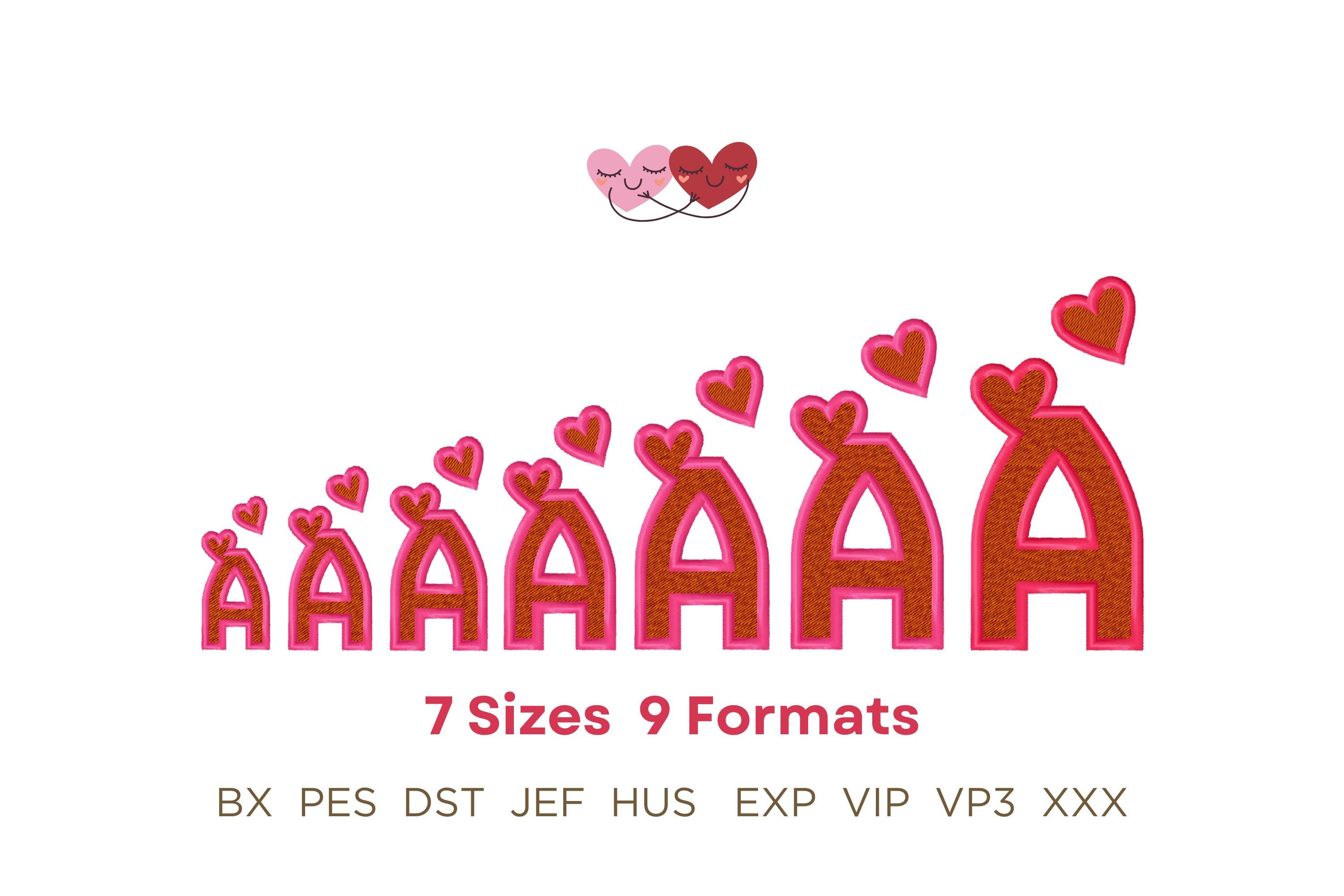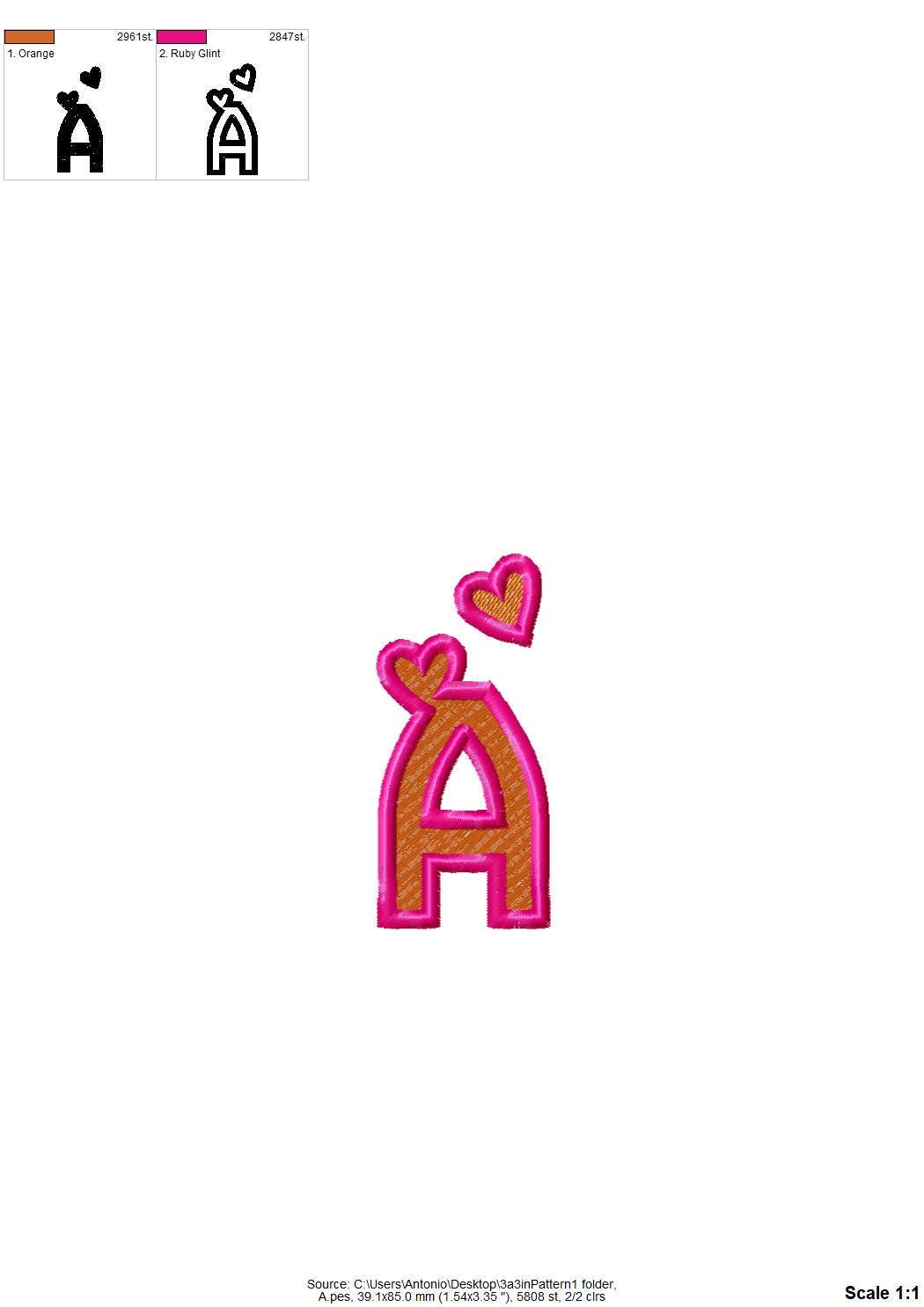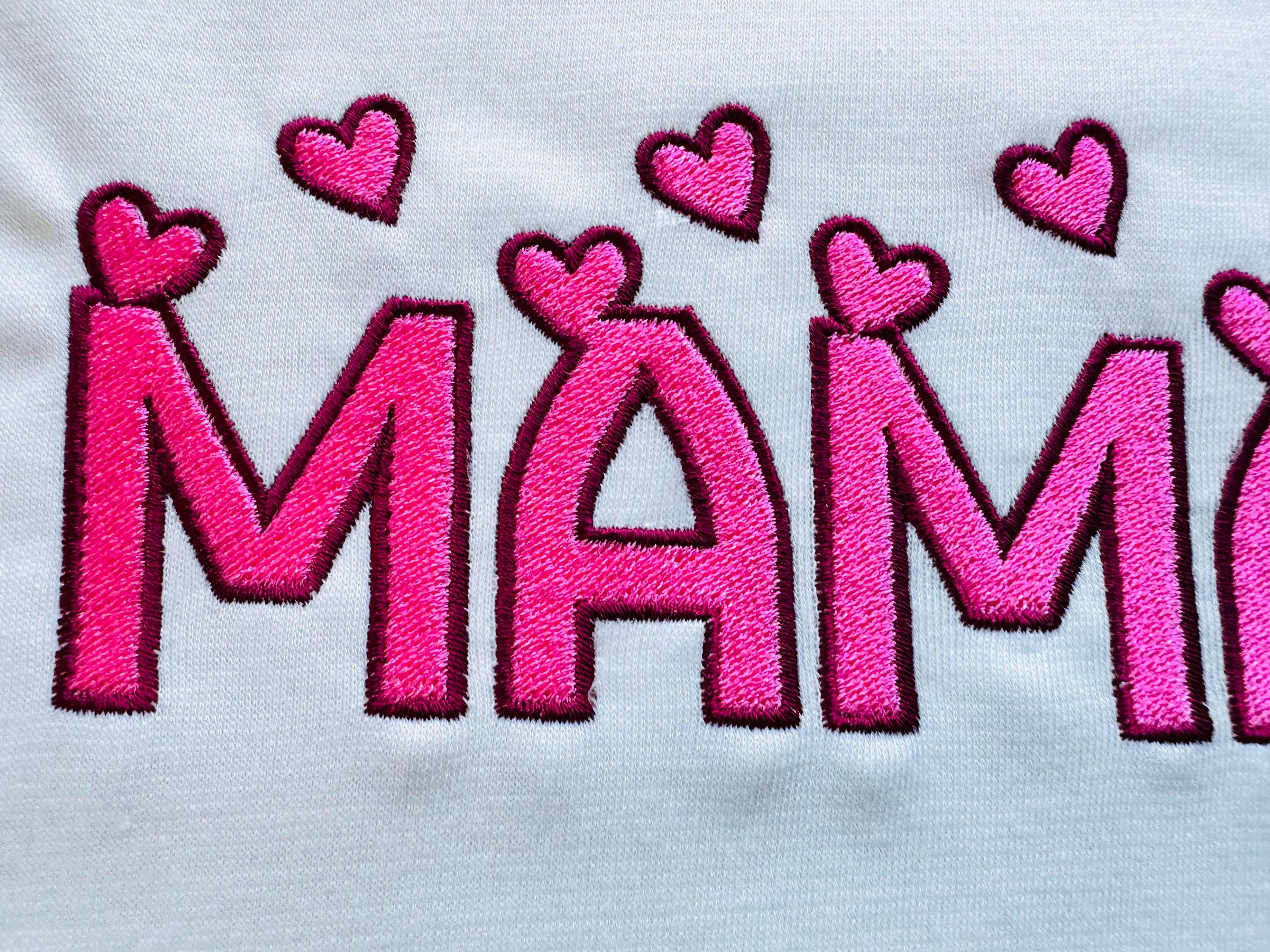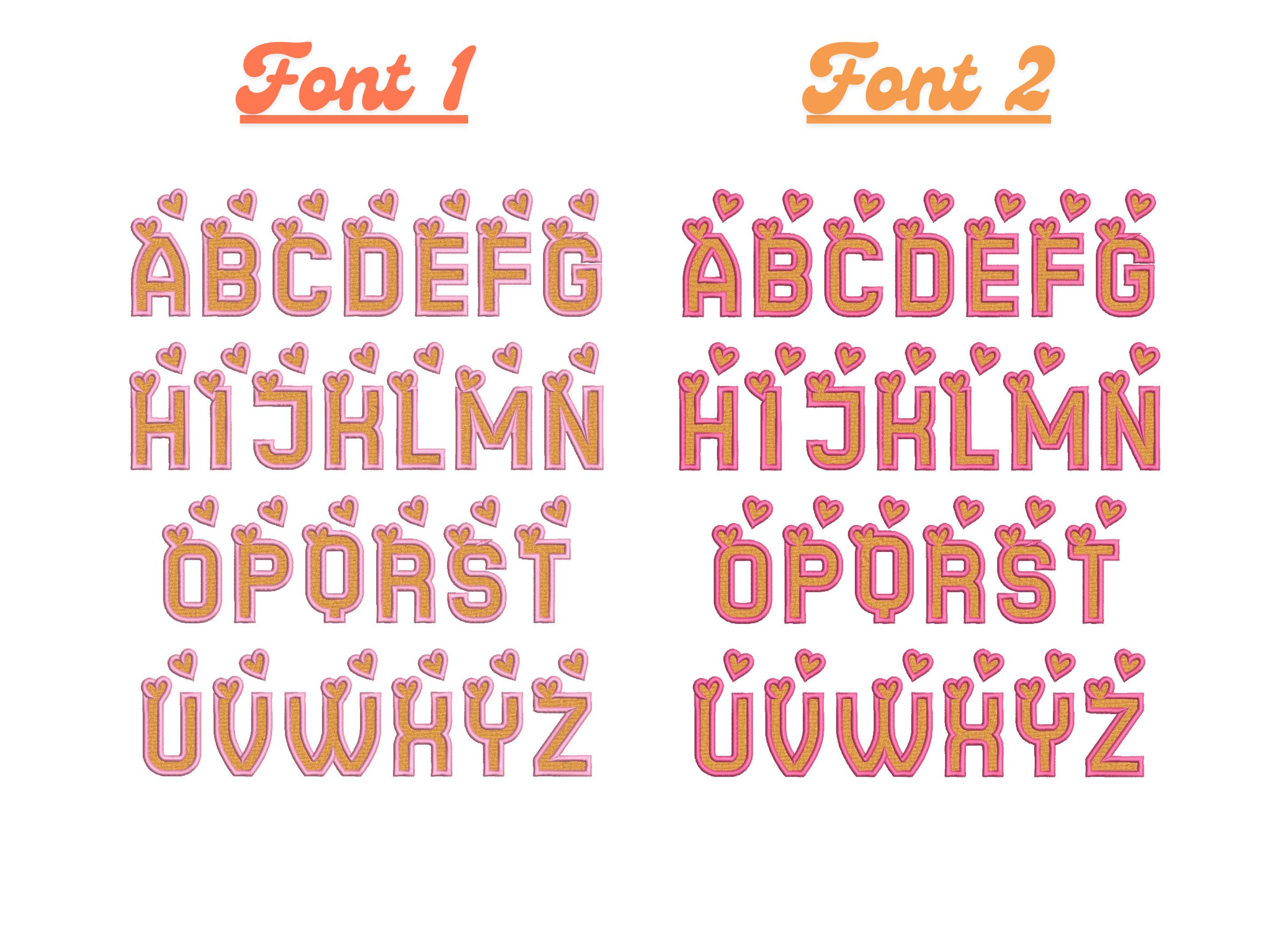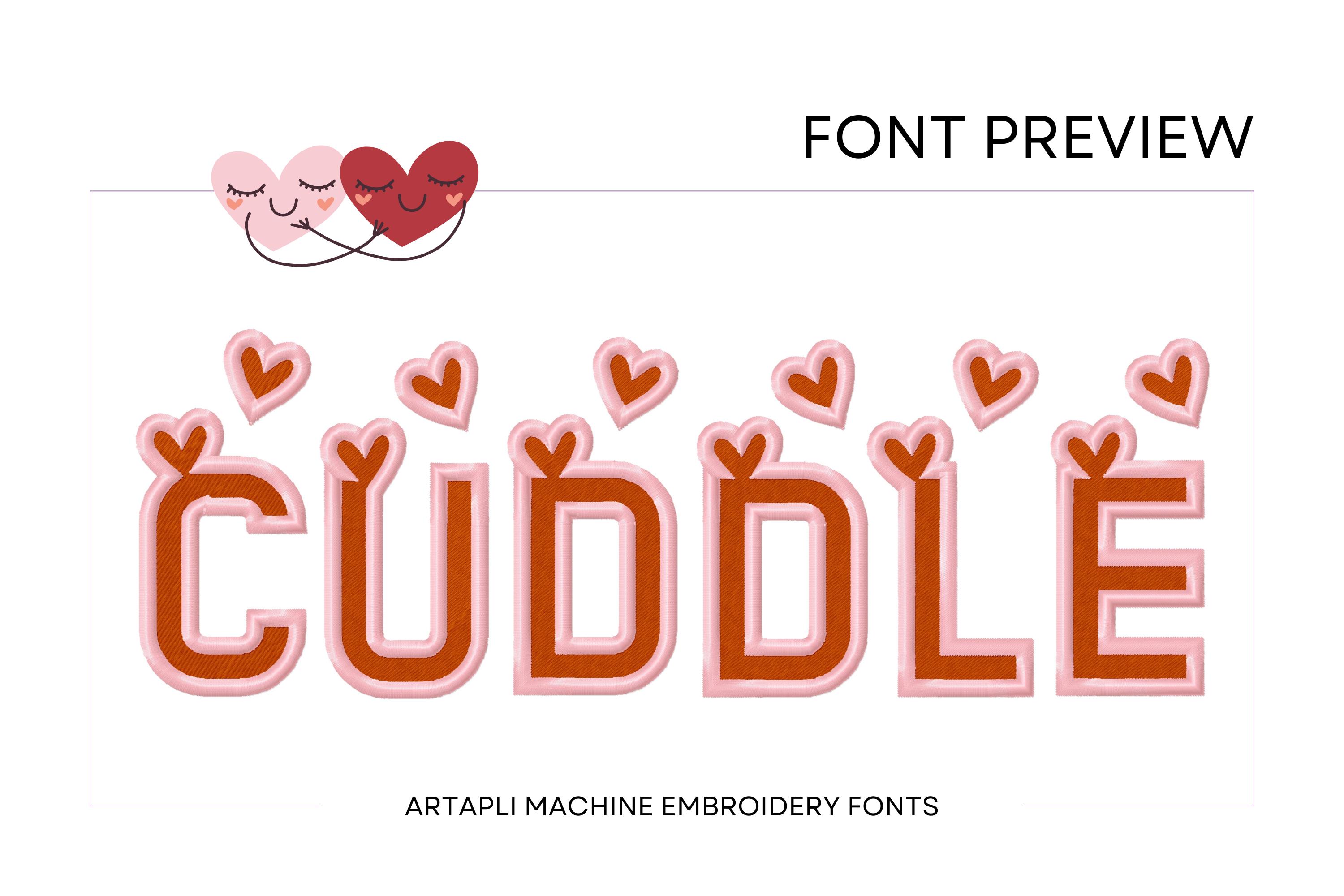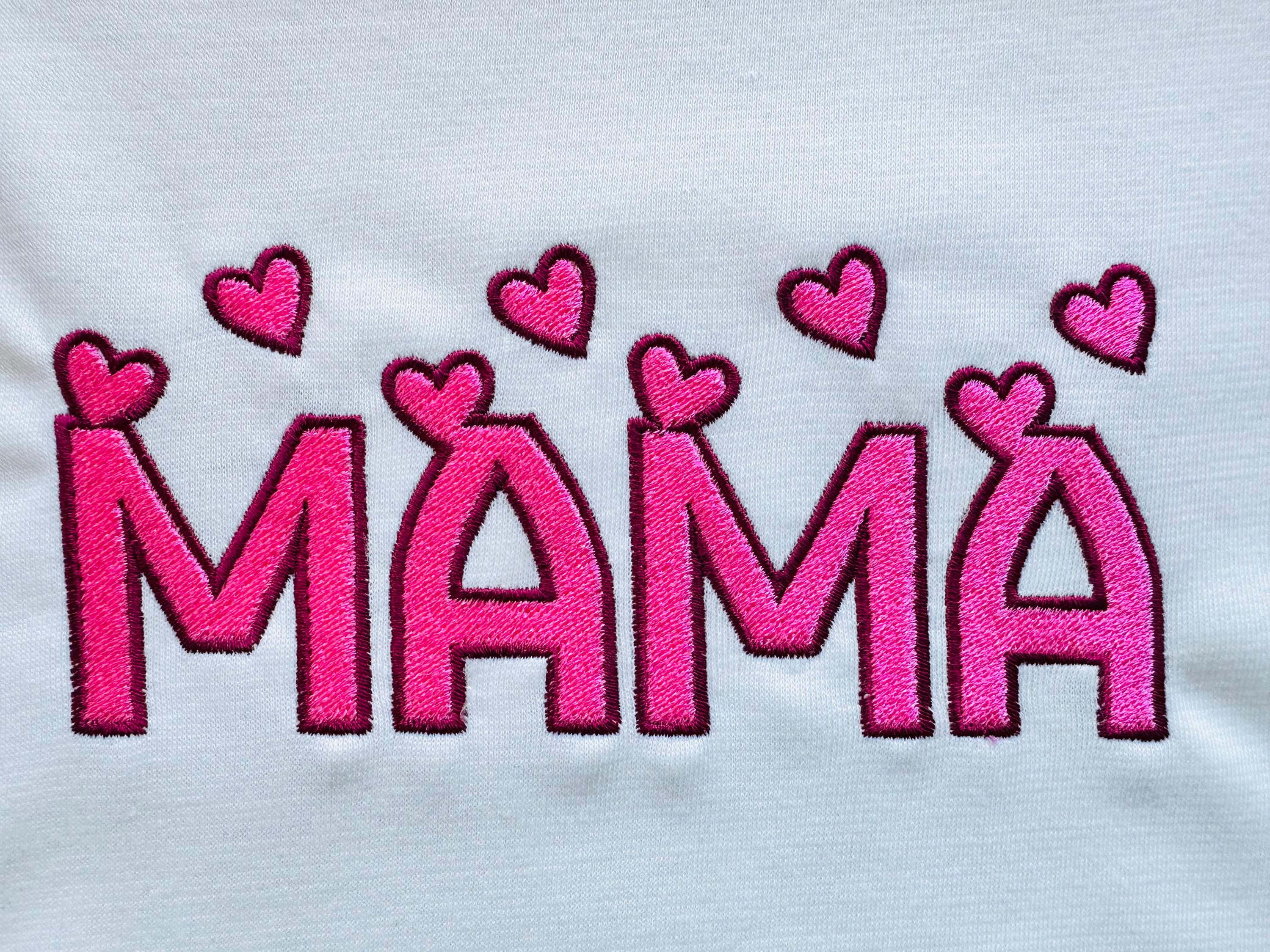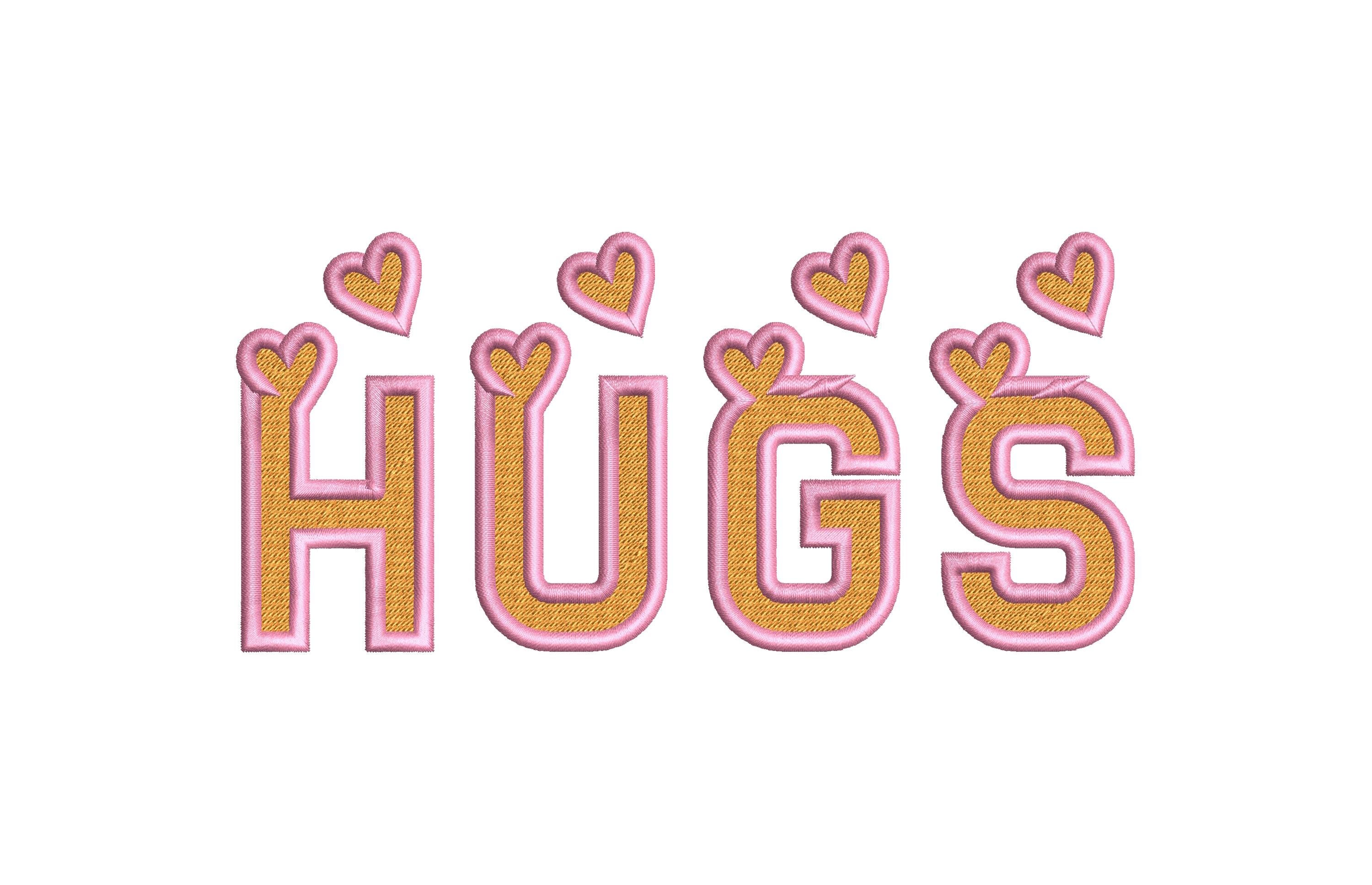
Heart Monogram FONT fill stitch and satin outline alphabet SET of 2 types machine embroidery designs Valentine letters sizes 2 up to 5 inch
Included 2 slightly different alphabets.
Entire alphabet uppercase letters A-Z.